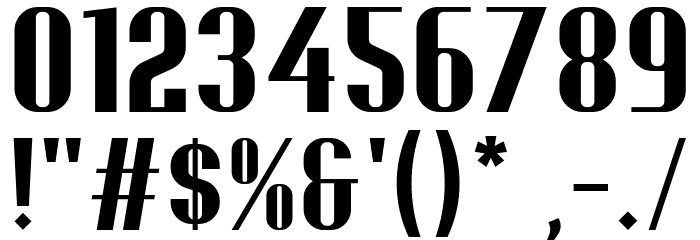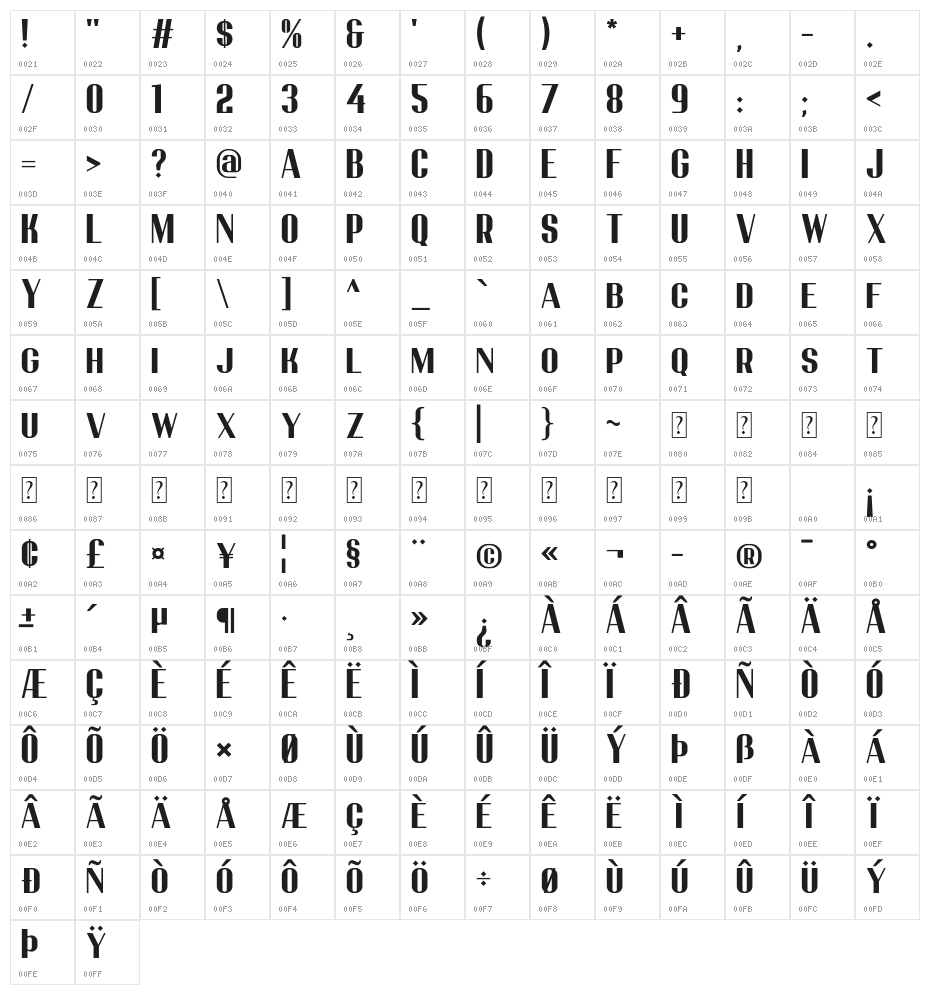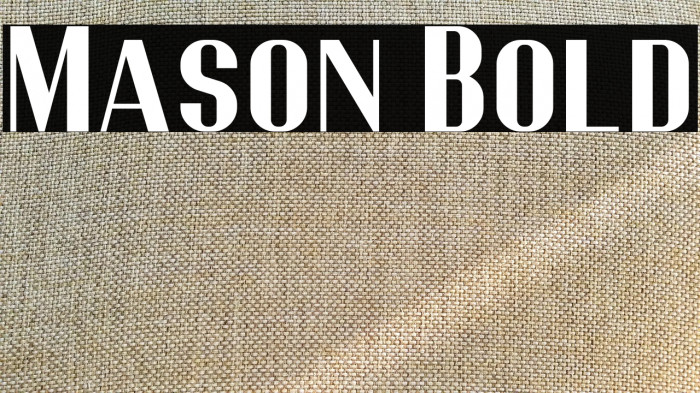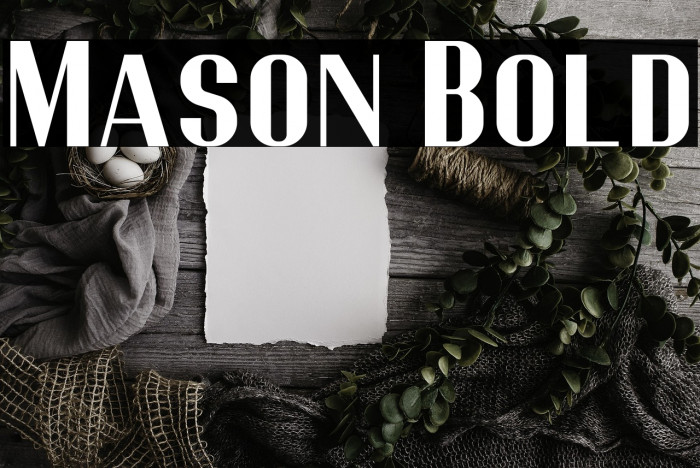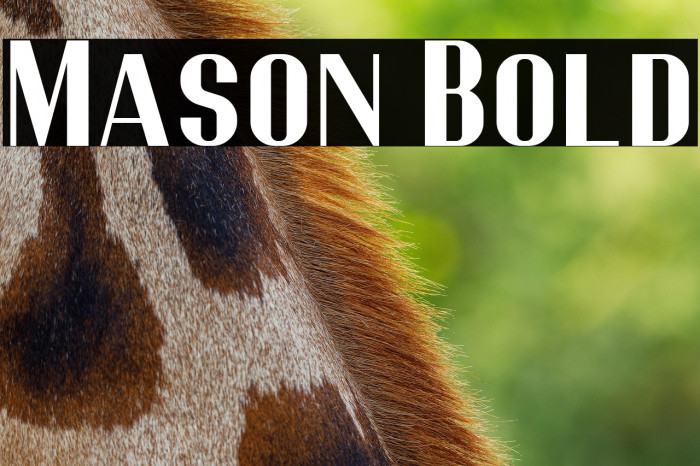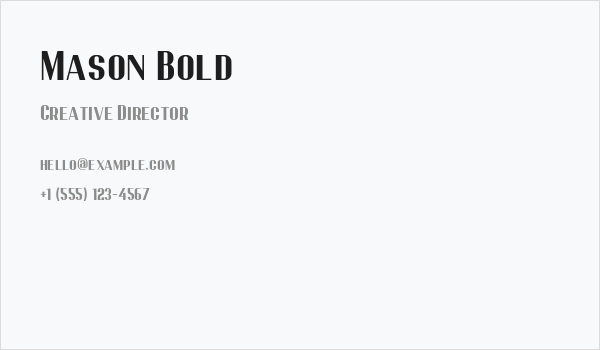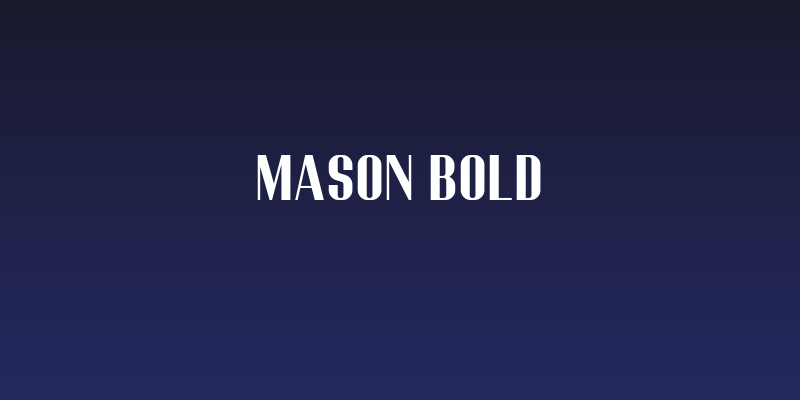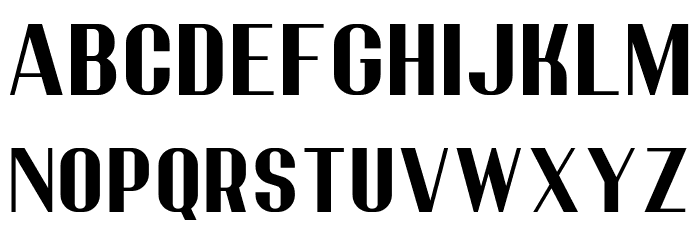
Mason Bold Font
Mason Bold Description
This typeface features a bold and striking design with high contrast between thick and thin strokes. The uppercase letters are particularly dominant, with a strong vertical emphasis and sharp, angular serifs that give it a modern yet classic feel. The numerals are equally bold, maintaining the same high contrast and angular style. The special characters are designed to complement the overall aesthetic, ensuring consistency across all glyphs. This font is ideal for making a statement, with its bold presence and clear legibility.
| Overall Style | Modern Classic |
| Proposed Projects | Ideal for headlines, posters, branding, and any project requiring a strong visual impact. |